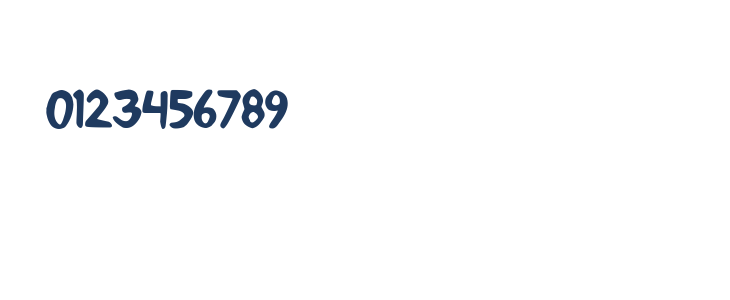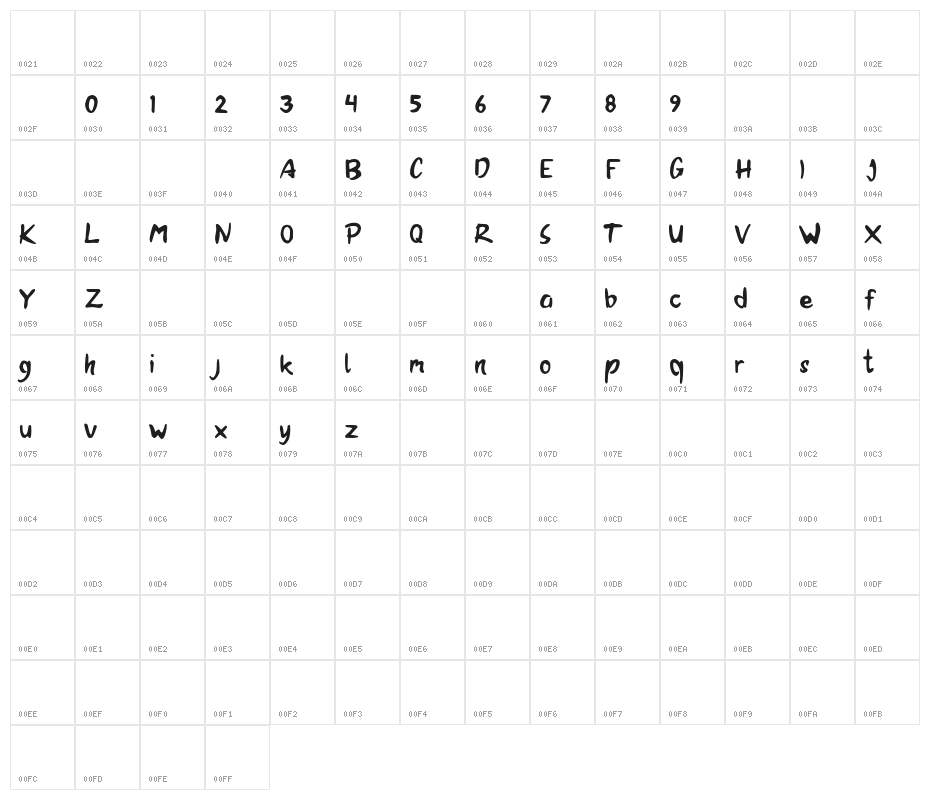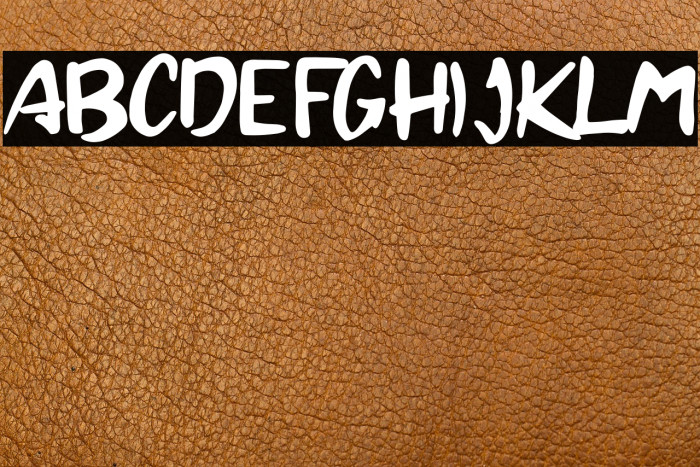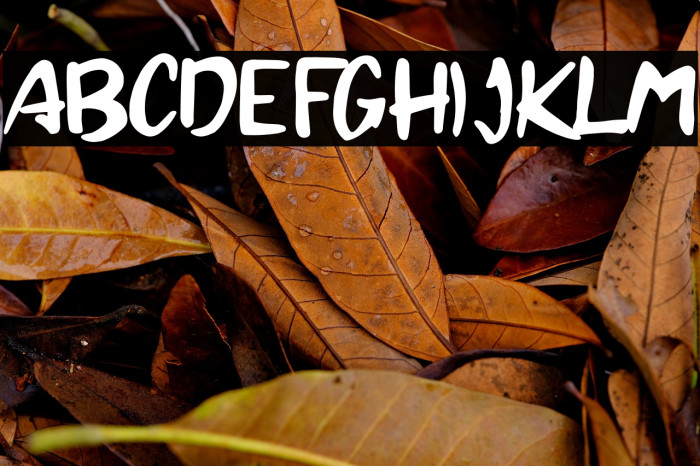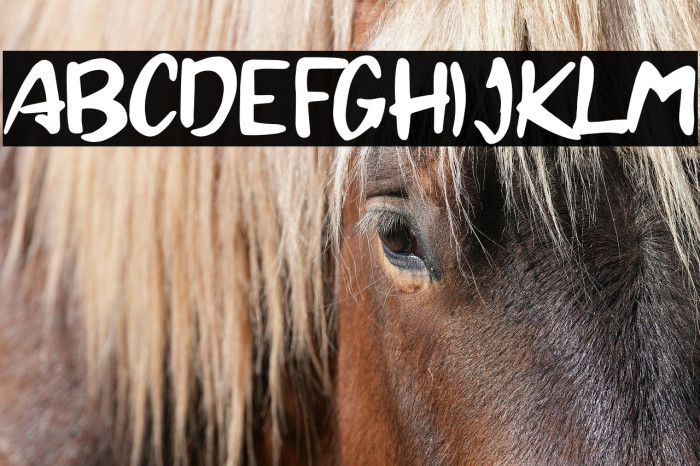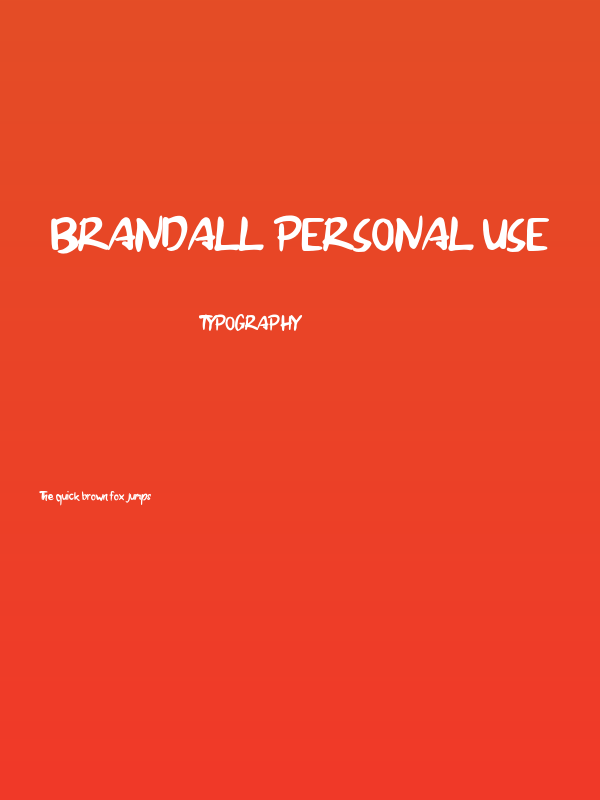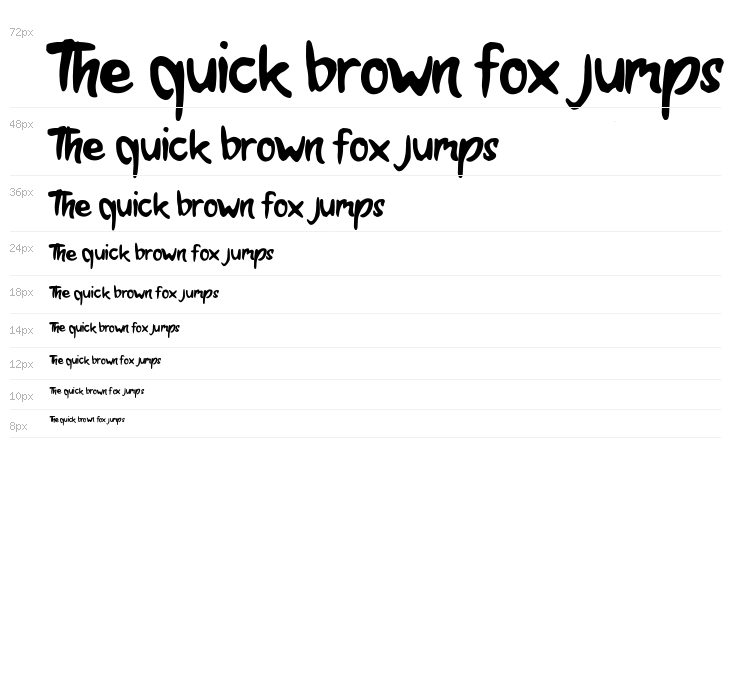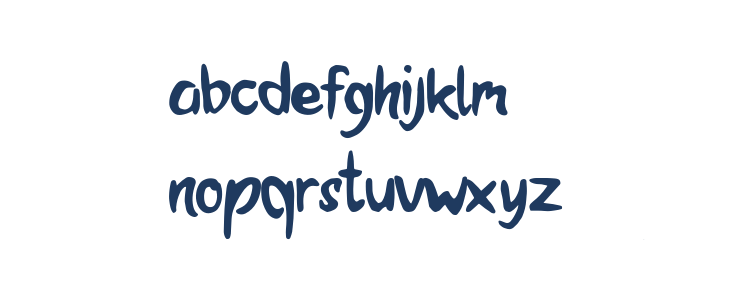
Brandall Personal Use Font
Brandall Personal Use Description
This font features a playful and dynamic handwritten style, characterized by its bold and slightly irregular strokes. The letters exhibit a casual, flowing appearance, with a sense of movement and personality. The uppercase and lowercase characters maintain a consistent style, with rounded edges and a slight slant, enhancing the informal and approachable feel. The numerals and special characters follow the same design principles, ensuring a cohesive look across all elements. This font is ideal for projects that require a personal touch or a creative flair.
| Proposed Projects | Ideal for greeting cards, invitations, personal branding, and creative projects that require a friendly and informal touch. |